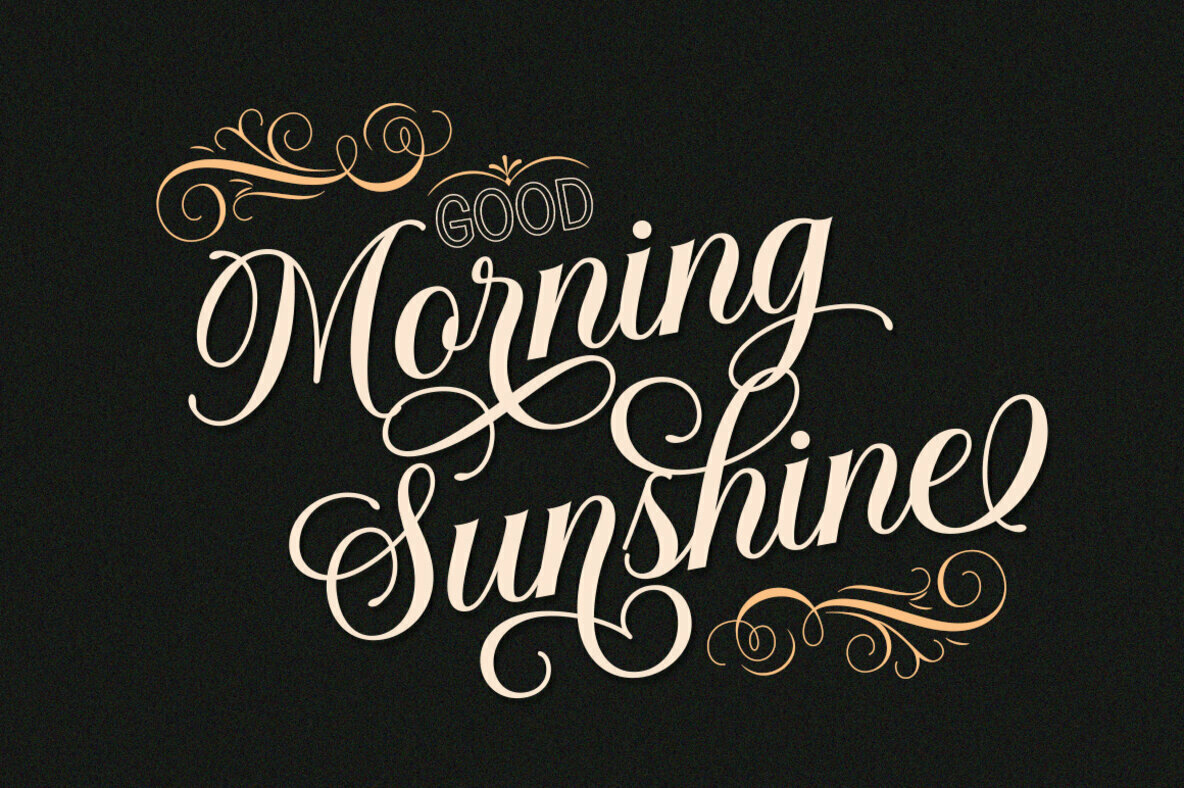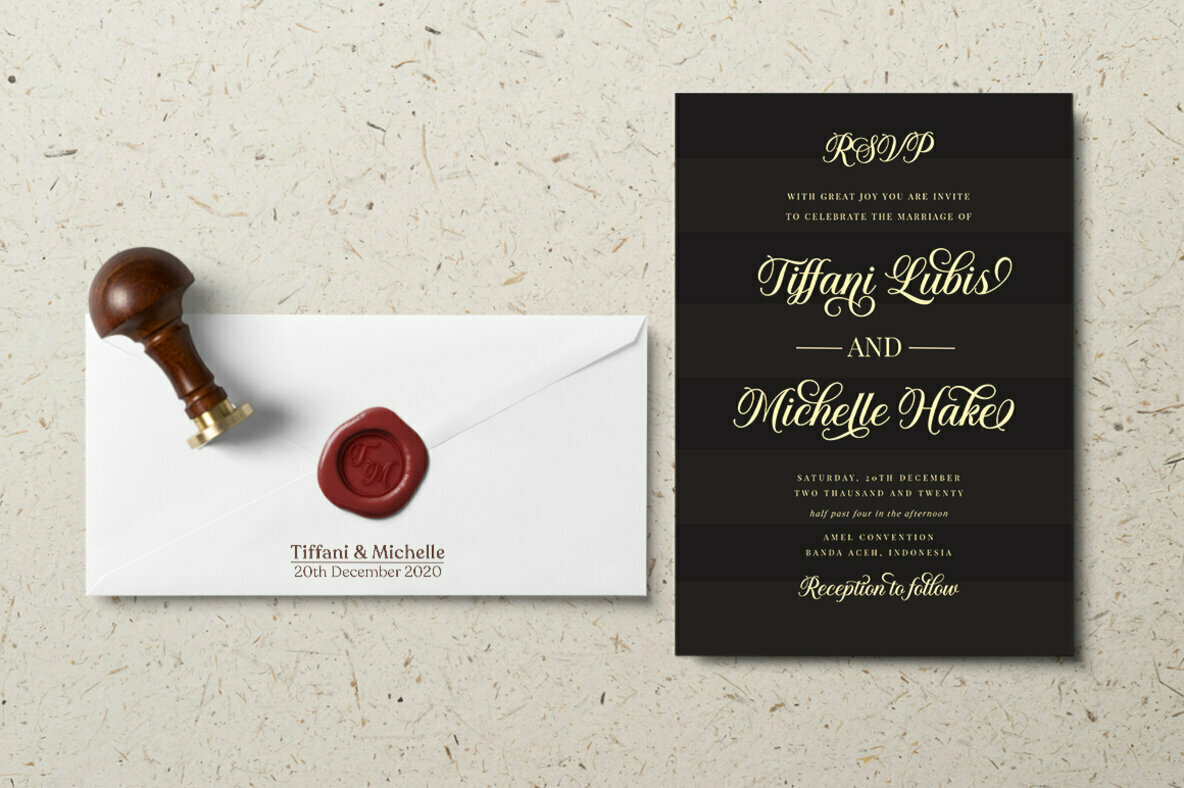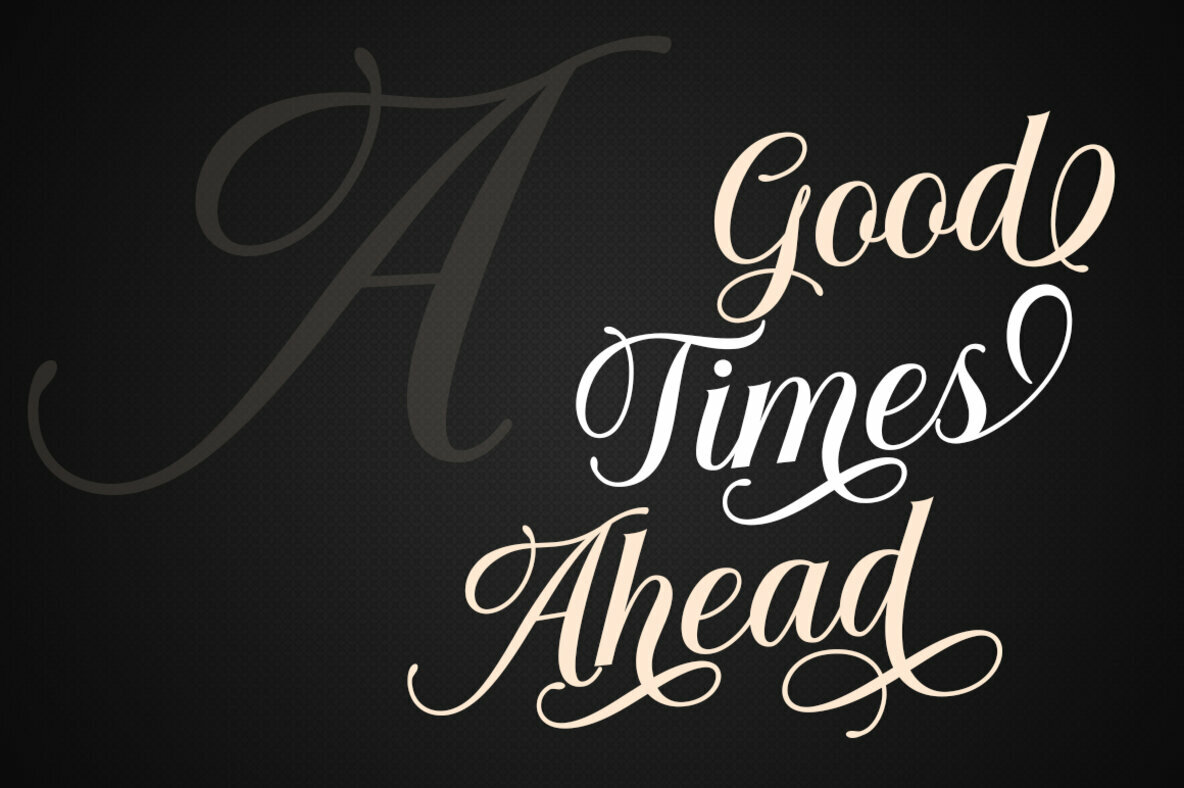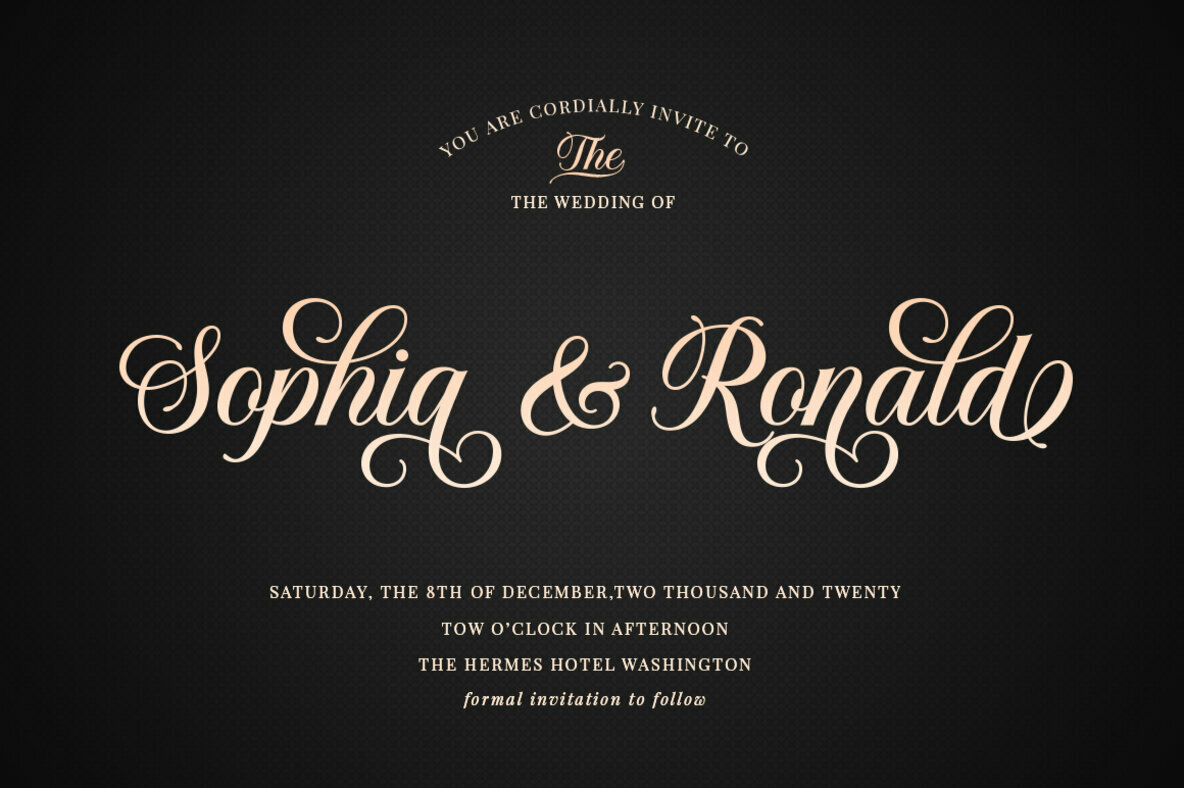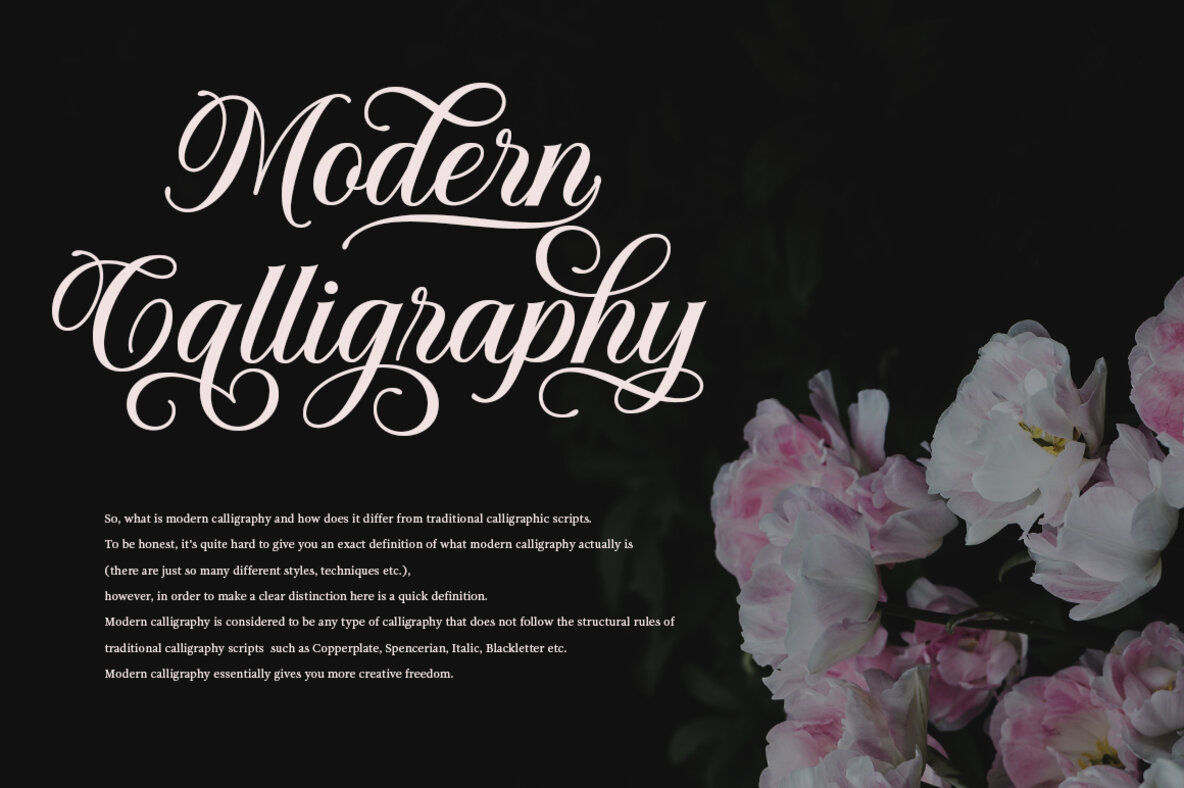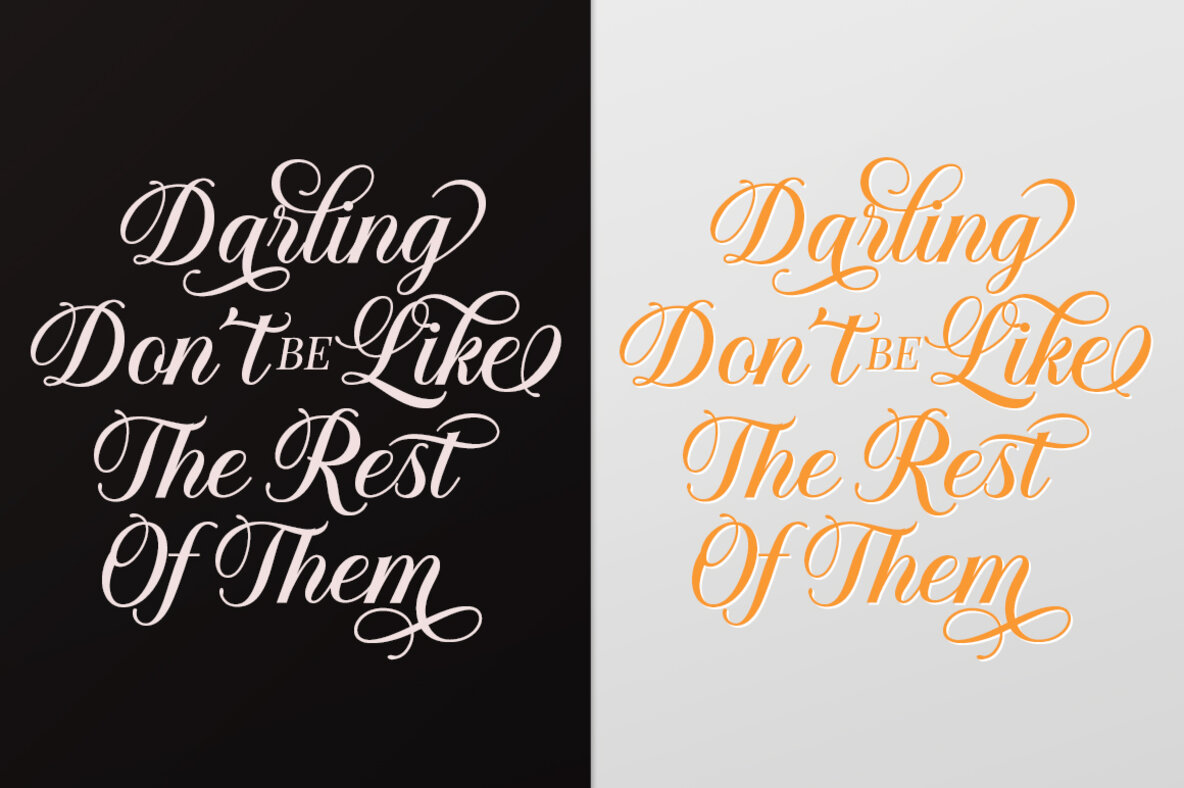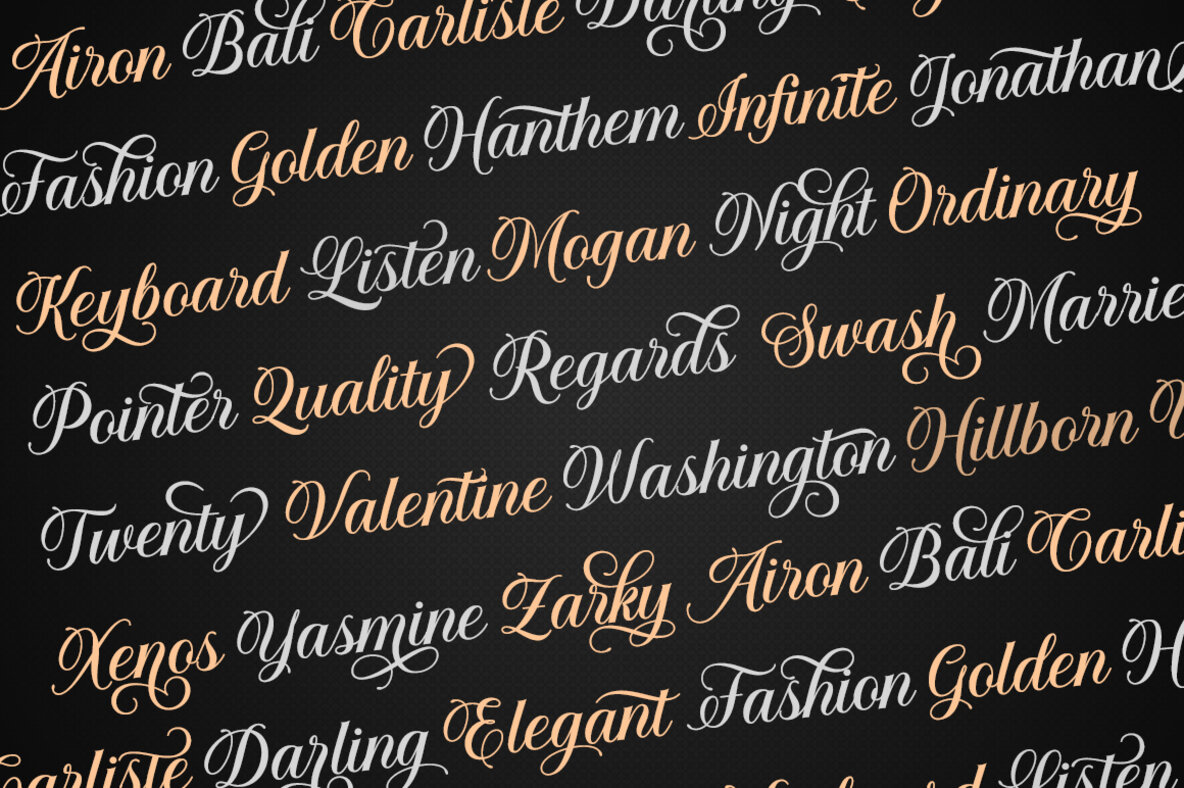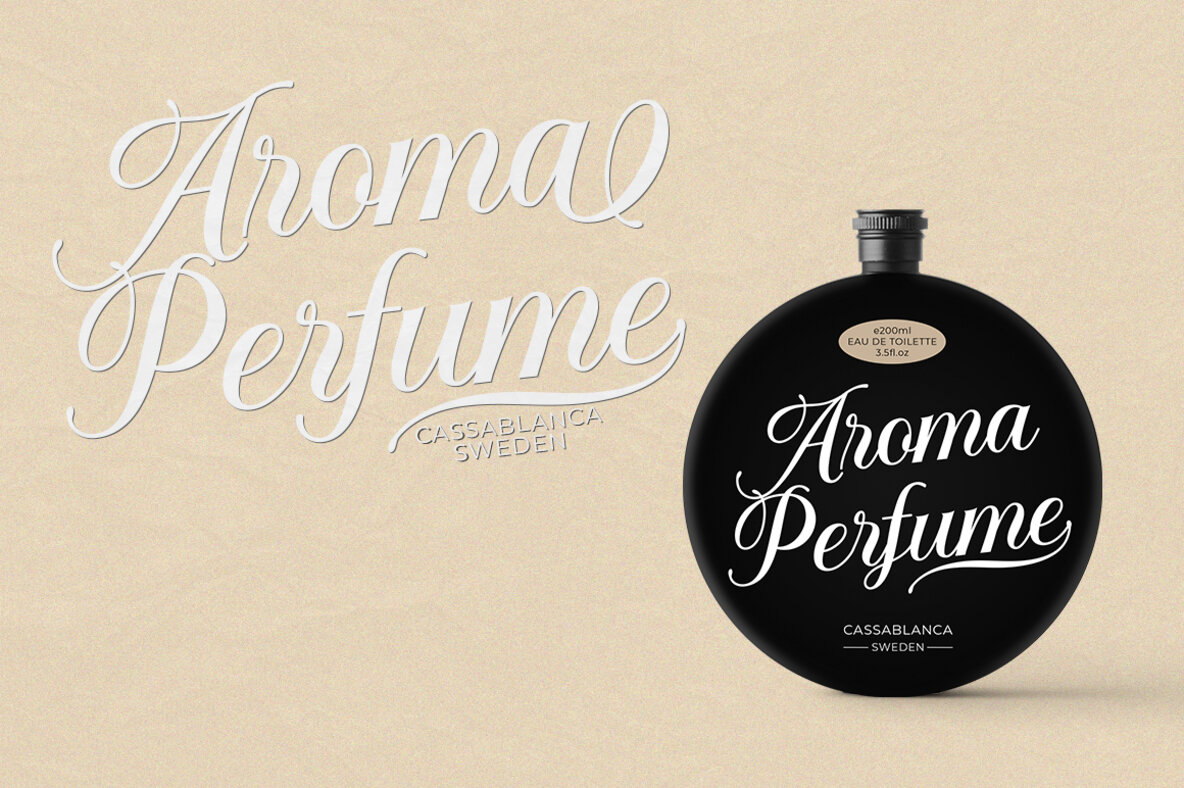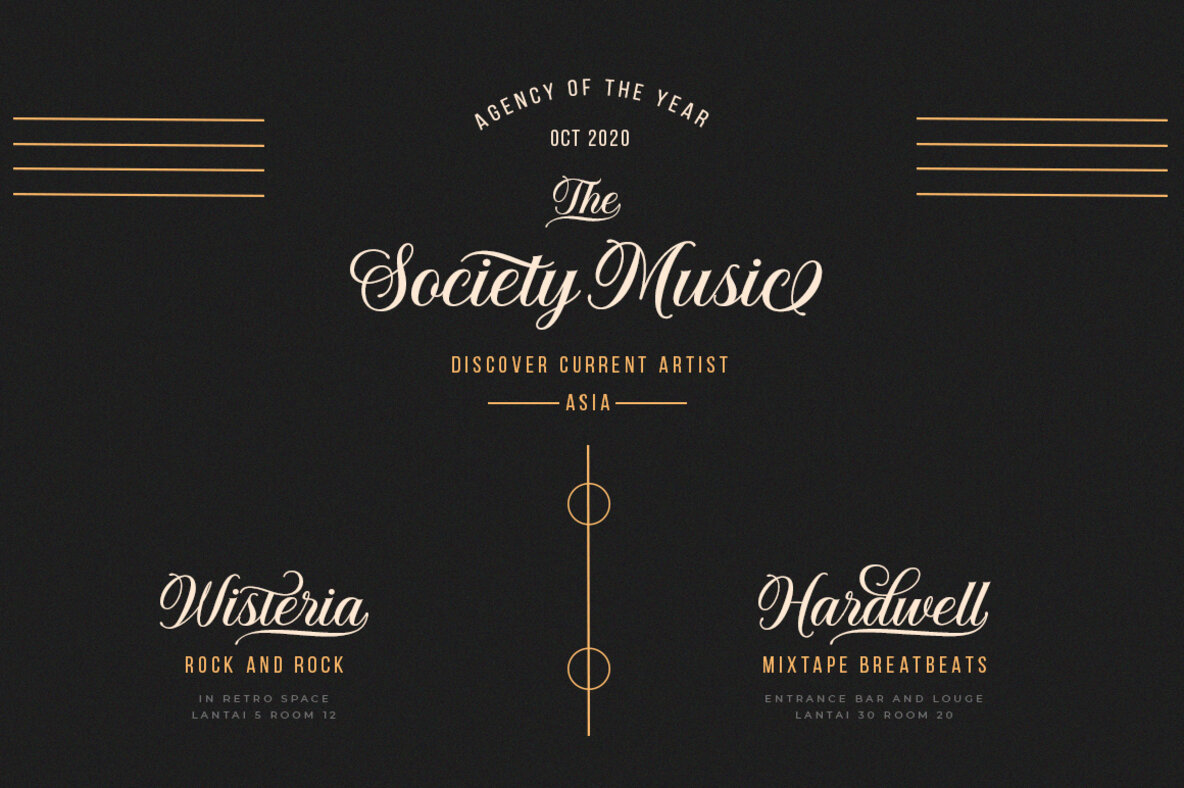
Solistaria Script Font
Drawing inspiration from the elegance of copperplate calligraphy and the artistry of hand lettering, Solistaria Script presents itself as the epitome of refined sophistication. This high-quality script font imbues any project with a modern yet vintage charm. With its seamless blend of styles, it is perfectly suited for both formal and creative applications. Whether you are crafting invitations, labels, or branding materials, Solistaria Script offers a versatile aesthetic that enhances your designs. The font provides compatibility with a range of design software, including Adobe Illustrator, Adobe Photoshop, Adobe InDesign, Corel Draw, and Microsoft Word. Furthermore, Solistaria Script supports an array of languages, expanding its utility across international projects.Solistaria Script: A Blend of Modern Elegance